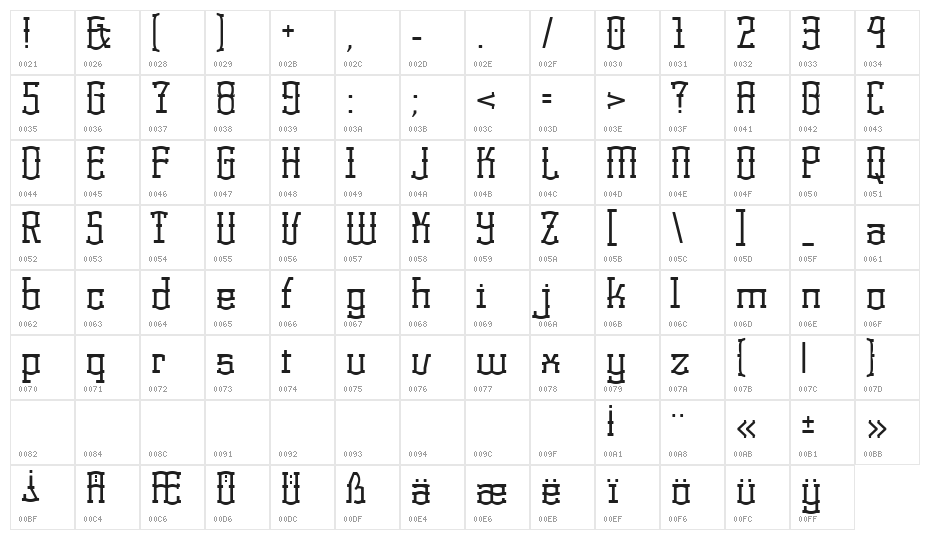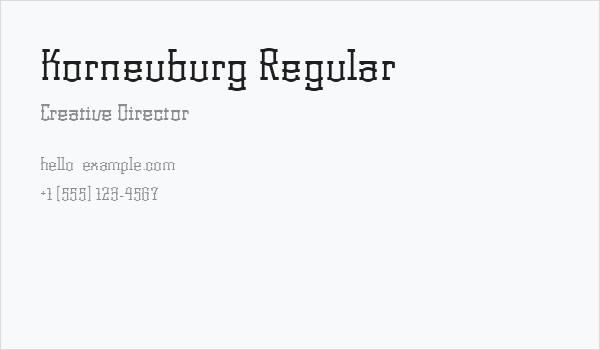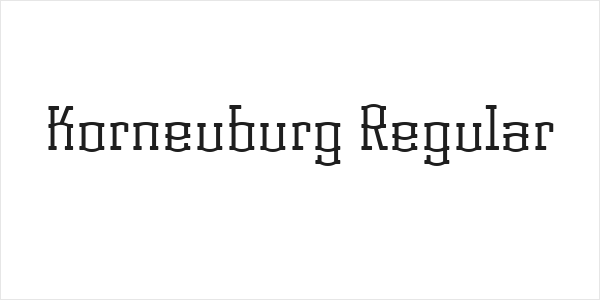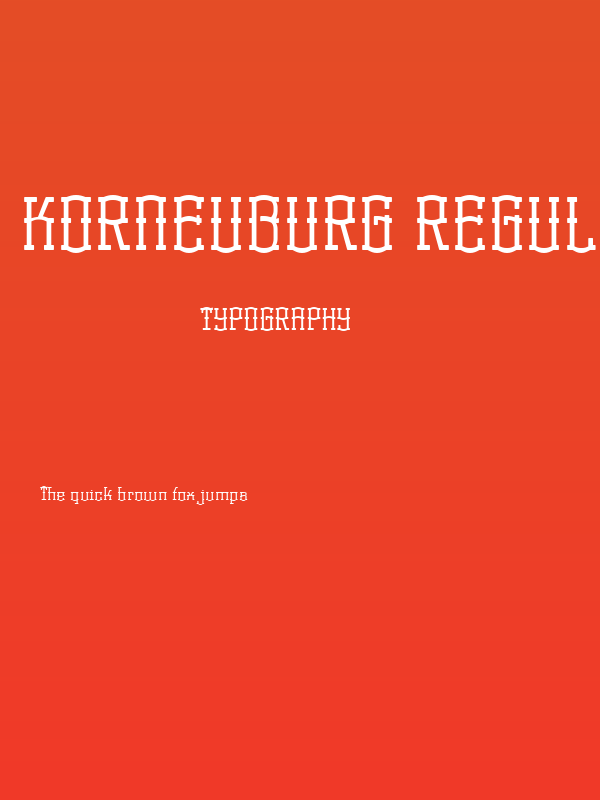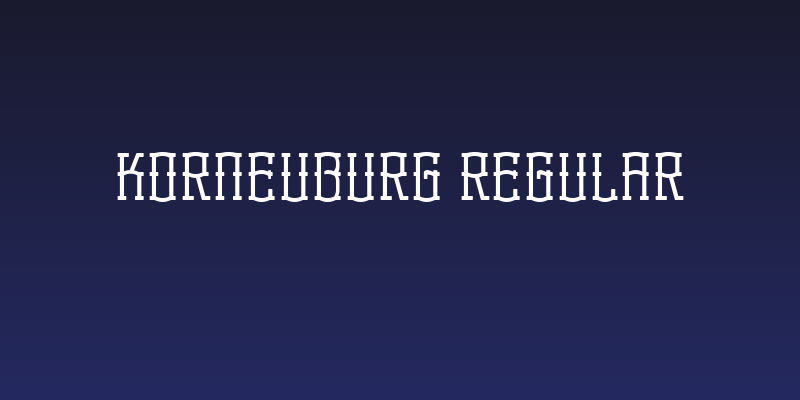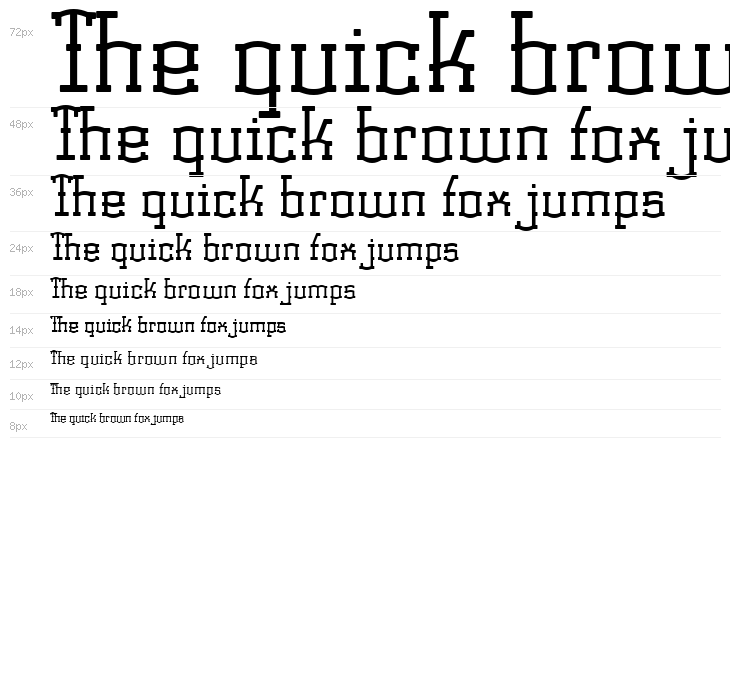
Korneuburg Regular Font
Korneuburg Regular Description
This font features a unique blend of modern and vintage styles, characterized by its distinct geometric shapes and bold, angular serifs. The uppercase letters exhibit a strong, commanding presence with their tall, narrow forms and sharp edges. The lowercase letters maintain a consistent style, offering a harmonious balance between readability and decorative flair. Numbers and special characters follow the same design principles, ensuring a cohesive look across all text elements. The font's overall appearance is both striking and versatile, making it suitable for a variety of design applications.
Overall StyleModern, Vintage
Proposed ProjectsIdeal for branding, posters, headlines, and editorial design projects.